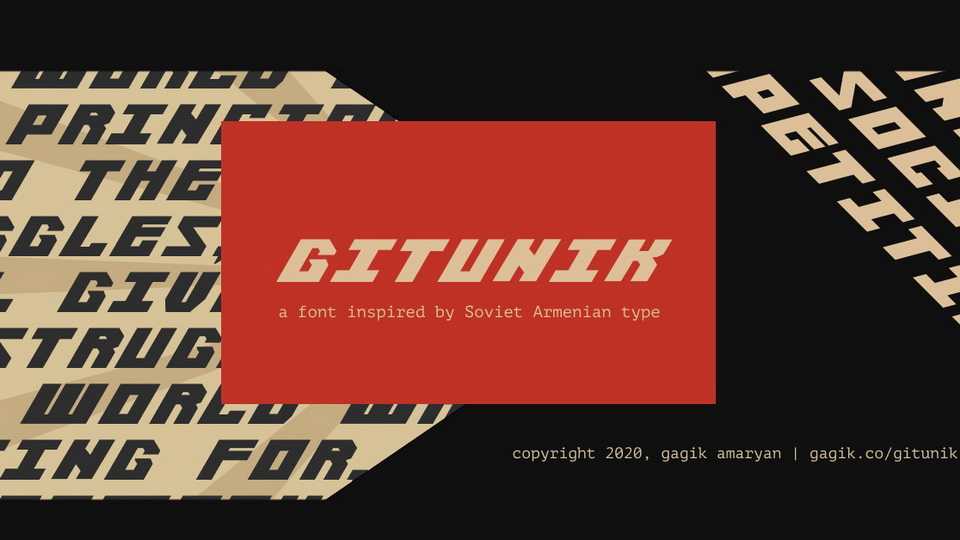
Download Gitunik font, a display typeface heavily influenced by Russian Constructivism and features a bold and blocky design. Gitunik taking inspiration by the Technic typeface by Henrik Mnatsakanyan, one of the pioneers of Soviet Armenian typography.